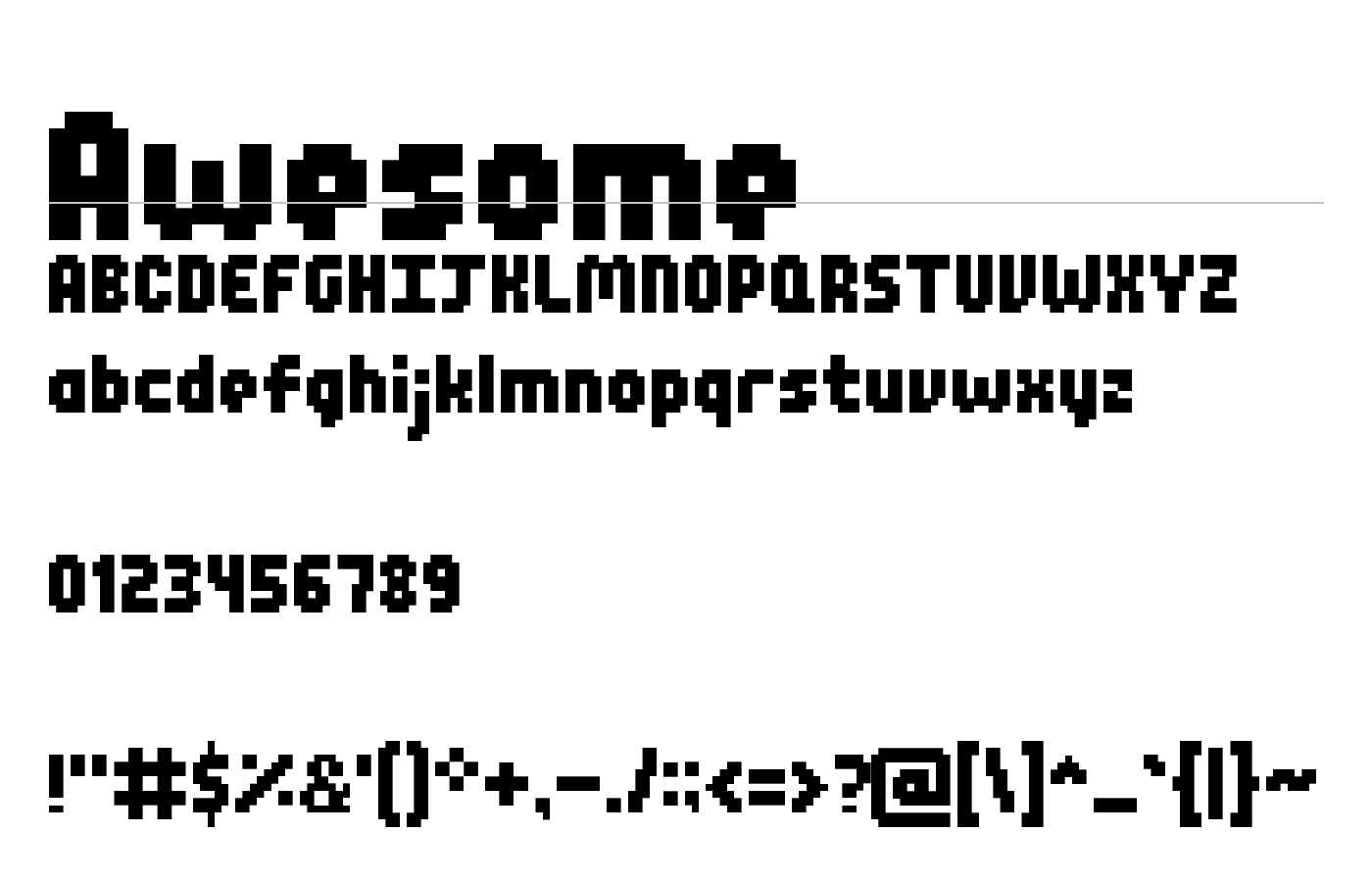
Awesome Font is a bold, pixelated sans serif typeface with a distinct blocky and geometric style that evokes a retro, digital aesthetic. Its compact width and consistent stroke weight make it ideal for tech, gaming, or vintage-inspired designs where a strong and playful personality stands out. This font works well for logos, headlines, and digital media, adding a nostalgic yet modern feel to any project.
Awesome Font
About Awesome Font